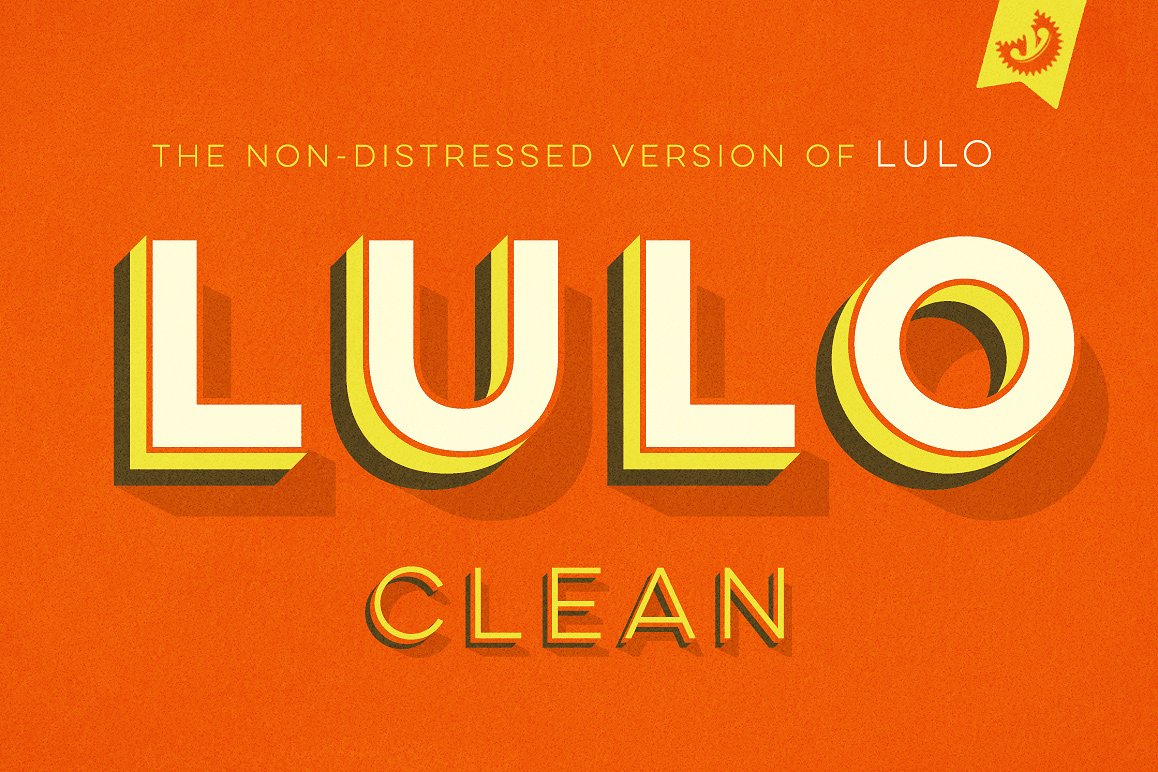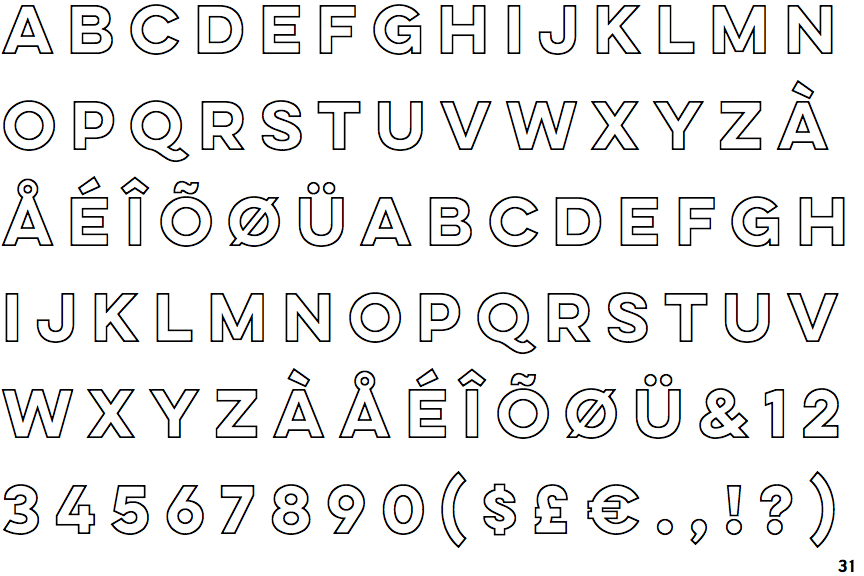
Lulo Clean Font Alternative
Allcaps font with classic style.
Lulo clean font alternative. Lulo clean was designed by ryan martinson and published by yellow design studio. Similar to lulo clean font. Here you will find fonts that look like lulo clean.
Lulo clean contains 10 styles and family package options. As in the case of swash glyphs, there may be more than one alternate form. Lulo clean font free download [direct link] february 13, 2021.
Lulo clean is a display sans font family. A basic sans serif typeface with very clear and daring letterforms. Many fonts contain alternate glyph designs for a purely esthetic effect;
Lulo clean is a display sans font family. These don't always fit into a clear category like swash or historical. This feature replaces the default forms with the stylistic alternates.
Many fonts contain alternate glyph designs for a purely esthetic effect; Lulo clean w01 one bold fonts. These don't always fit into a clear category like swash or historical.